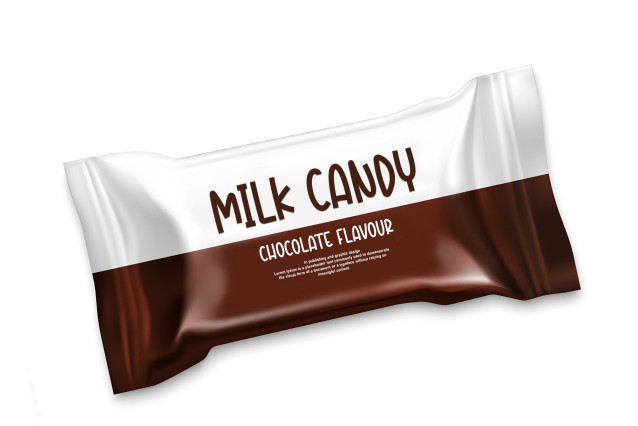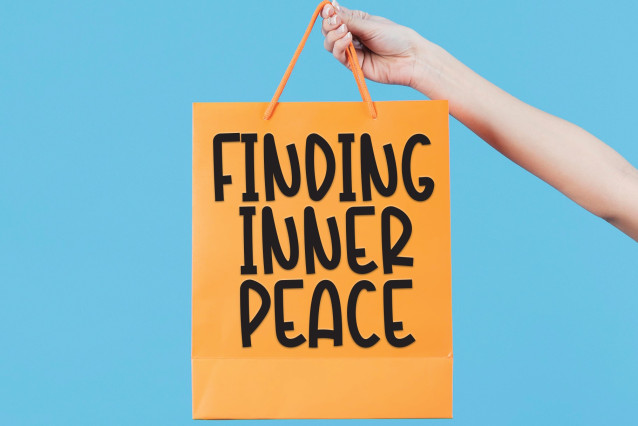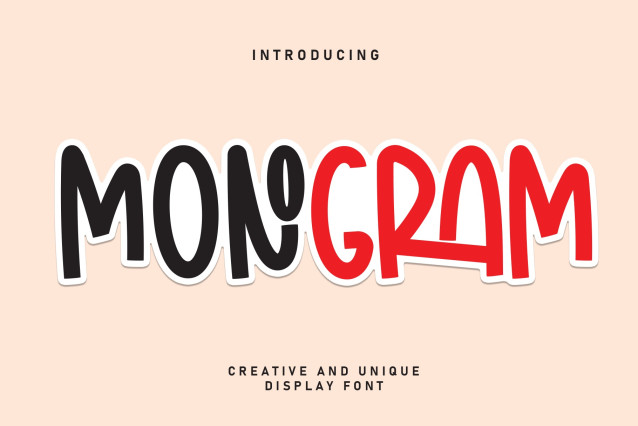
Monogram Playful Font
Monogram Playful Font is a chunky, comic, and cartoon display font. With its neat and joyful personality, this font will enhance any project you wish to create!